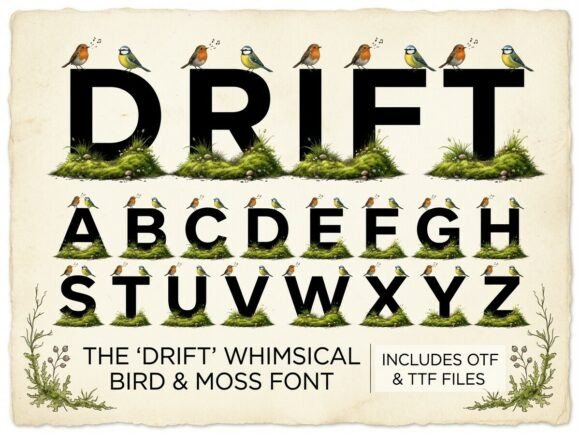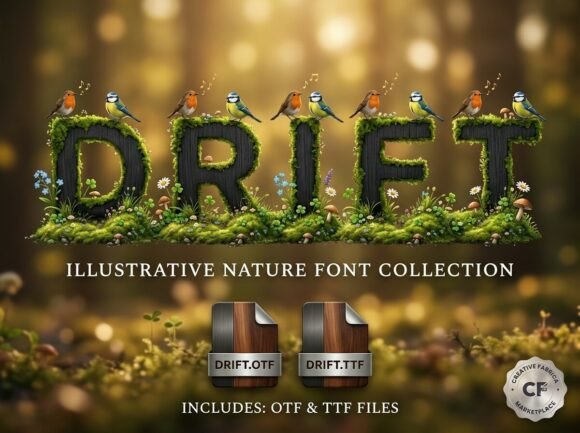
Introducing Drift Font: The Ultimate Decorative Display Font
Are you tired of using the same old fonts for your designs? Look no further than Drift Font, a stunning decorative display font that’s sure to turn heads. With its unique artistic elements and strong visual personality, this font is perfect for creators who want to break away from the ordinary and make a statement.
What Makes Drift Font Special?
Drift Font is a versatile decorative display font that’s designed to be the center of attention. Its unique artistic elements and strong visual personality make it perfect for a variety of design projects, from bold headlines and artistic logos to creative packaging. Whether you’re a graphic designer, a crafty DIY enthusiast, or a marketing professional, Drift Font is sure to elevate your designs to the next level.
Key Features of Drift Font
- Unique Artistic Elements: Drift Font features unique artistic elements that set it apart from other fonts. Each letter is carefully crafted to make a statement, making it perfect for high-impact headlines, logos, and decorative initials.
- Strong Visual Personality: This font has a strong visual personality that’s sure to grab attention. Its bold and eye-catching design makes it perfect for creating stunning designs that stand out from the crowd.
- Versatile: Drift Font is versatile enough for a variety of design projects, from bold headlines and artistic logos to creative packaging.
- Professional and Polished Finish: Despite its bold and artistic design, Drift Font maintains a professional and polished finish that’s perfect for high-end designs.
IMPORTANT NOTE BEFORE PURCHASE: Drift Font is an ALL-CAPS (Uppercase Only) display typeface. It does not include lowercase letters. It is specifically designed for high-impact headlines, logos, and decorative initials where every letter is a work of art.
Why Choose Drift Font?
So why choose Drift Font over other decorative display fonts? Here are just a few reasons:
- Unique Design: Drift Font features a unique design that’s sure to turn heads. Its artistic elements and strong visual personality make it perfect for designers who want to create stunning designs.
- Versatility: This font is versatile enough for a variety of design projects, from bold headlines and artistic logos to creative packaging.
- Professional Finish: Despite its bold and artistic design, Drift Font maintains a professional and polished finish that’s perfect for high-end designs.
How to Use Drift Font
Drift Font is perfect for a variety of design projects, including:
- Bold Headlines: Use Drift Font to create stunning headlines that grab attention.
- Artistic Logos: This font is perfect for creating artistic logos that make a statement.
- Creative Packaging: Use Drift Font to create eye-catching packaging that stands out from the crowd.